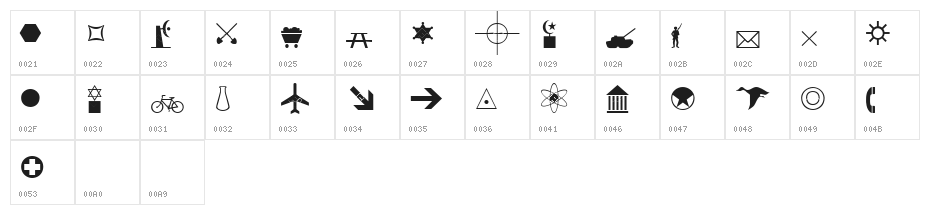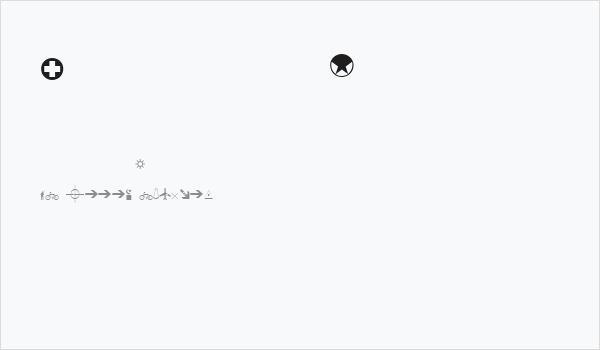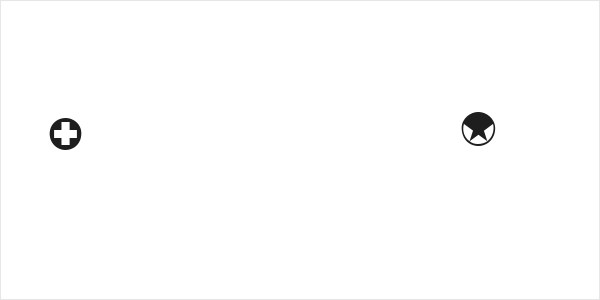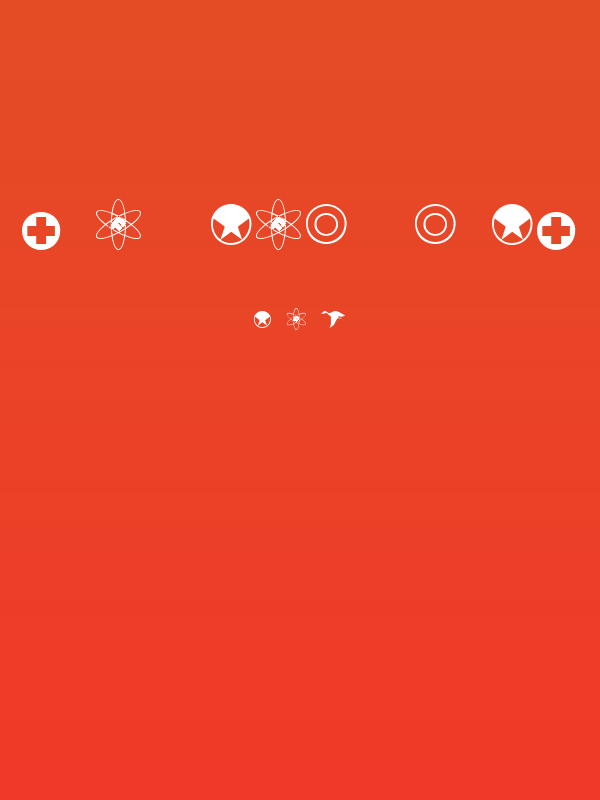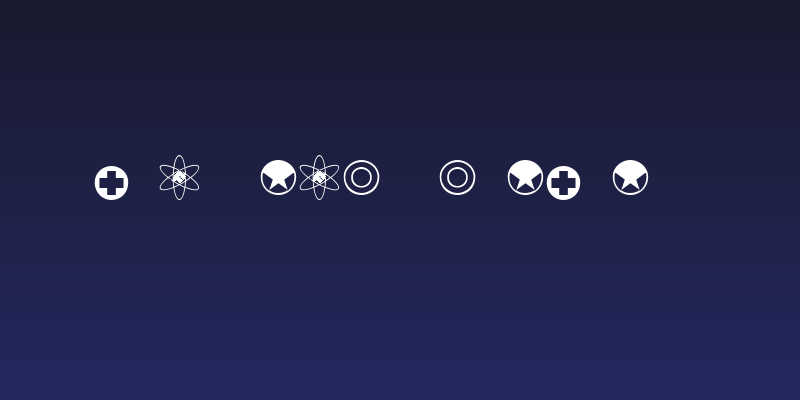
Scalegaindings GMN Font
Scalegaindings GMN Description
A collection of bold, geometric pictograms and symbols representing various objects and concepts, such as science, transportation, religion, and communication. The glyphs are solid, highly legible, and designed for clear visual communication.
| Overall Style | Modern, Functional |
| Use Case | Icons, Signage, Infographics |
| Proposed Projects | Wayfinding systems, public signage, infographics, educational materials, maps. |